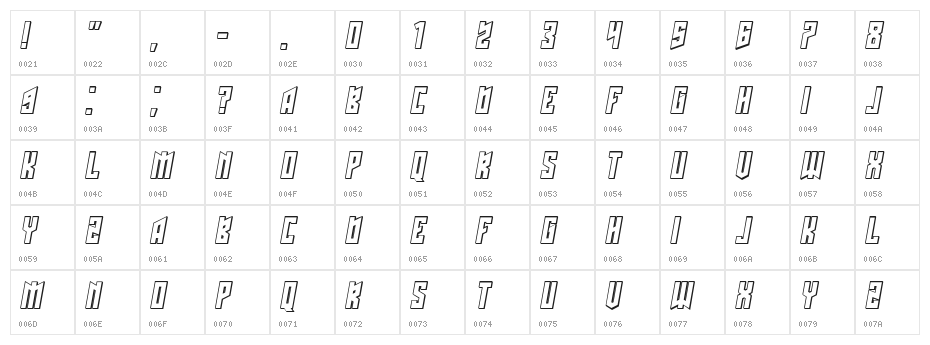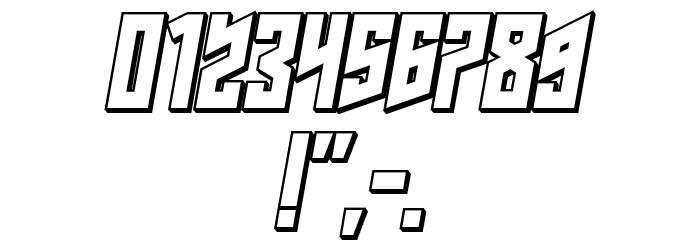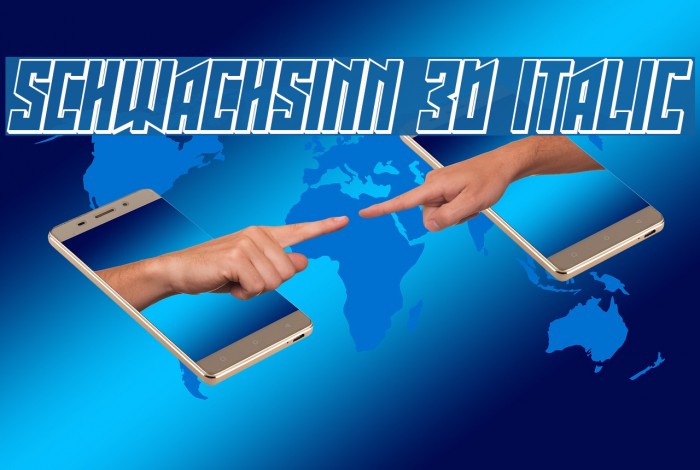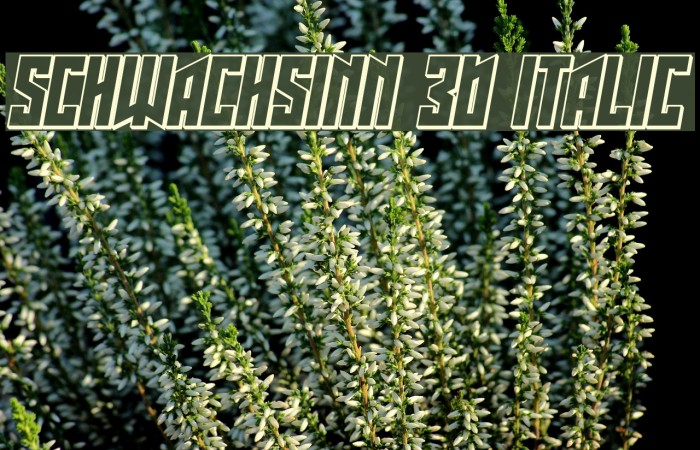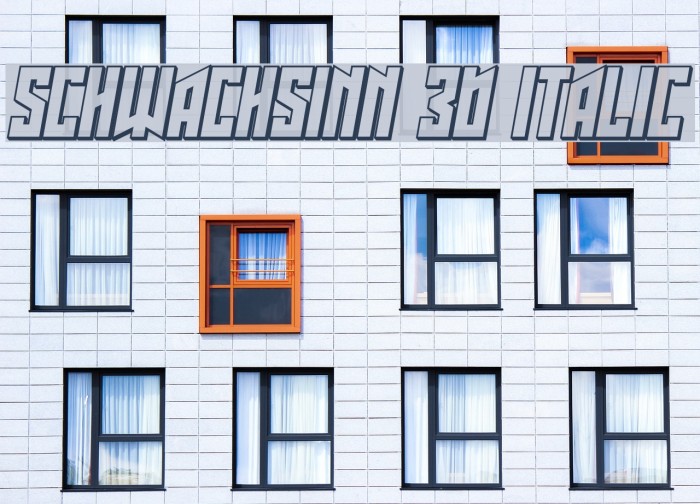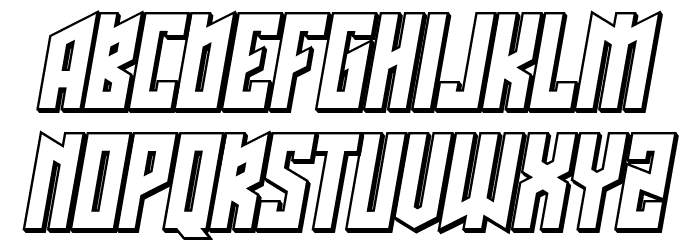
Schwachsinn 3D Italic Font
Schwachsinn 3D Italic Description
This font features a bold, 3D italic style with a strong geometric influence. The characters are designed with sharp angles and a distinct shadow effect, giving them a dynamic and futuristic appearance. The uppercase letters are particularly striking, with a consistent slant that enhances the italicized effect. The numerals and special characters maintain the same bold and angular design, ensuring uniformity across all glyphs. This font's unique style makes it stand out, ideal for projects that require a modern and eye-catching typeface.
| Proposed Projects | Ideal for video game titles, movie posters, and branding for tech companies. |